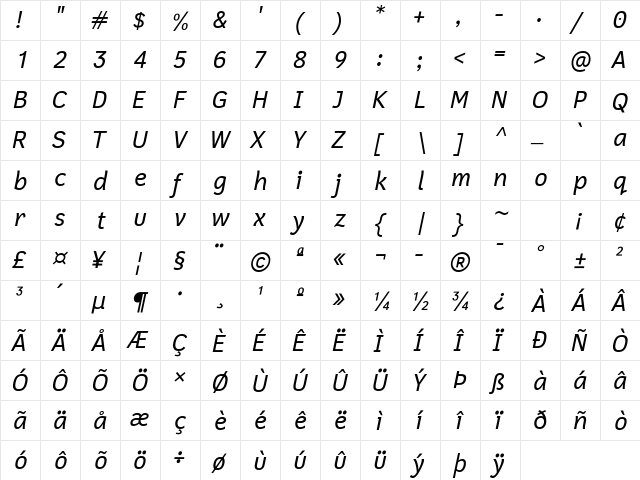
Cadman Italic
| Designer | Paul James MIller |
Design Context for Cadman Typeface
Cadman offers clean, dependable letterforms without strong stylistic allegiance, making it a practical choice for designers who need flexibility. Its italic angle brings a sense of urgency and motion to the letterforms.
Pro Tip: Try Cadman for annotation and caption copy alongside an upright companion — the contrast in angle creates a dynamic but ordered typographic system.